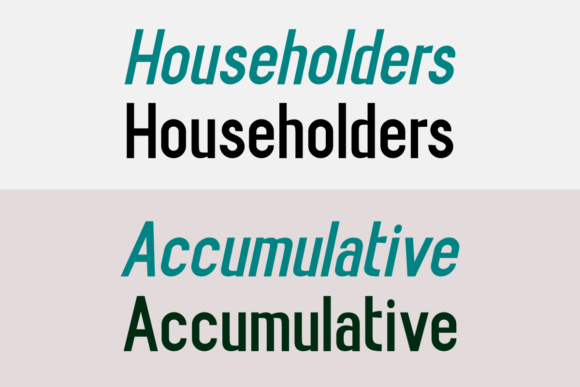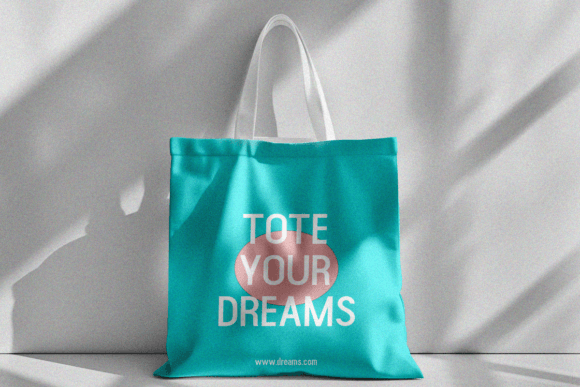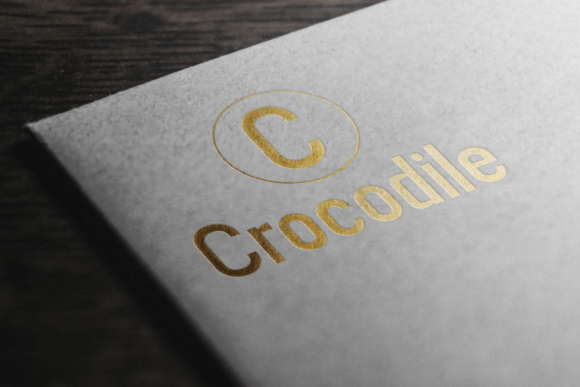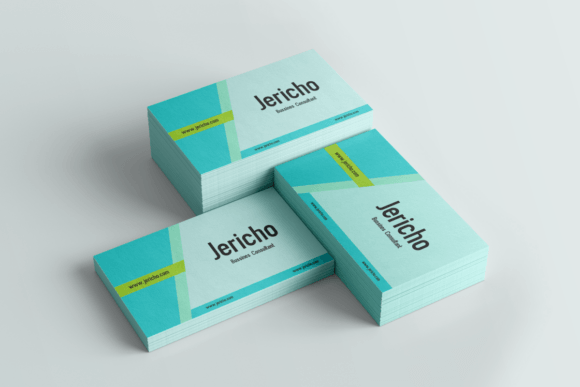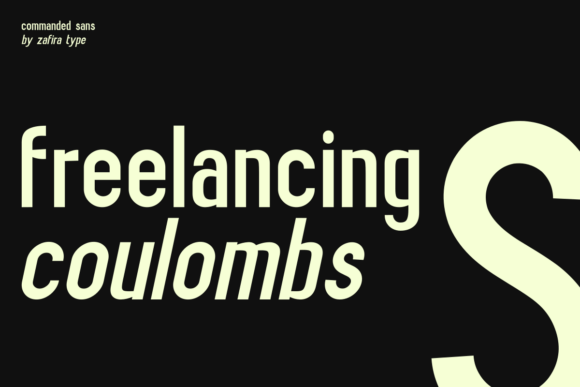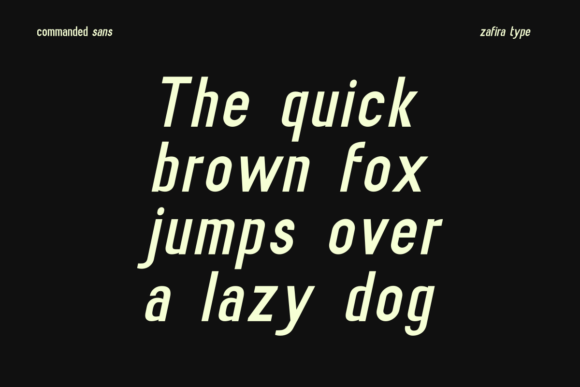
Introducing Commanded Sans: Elevate Your Designs with Modern Sophistication
In the realm of typography, a font can make or break the visual appeal of a design project. For designers and crafters seeking a modern, professional edge, Commanded Sans emerges as a compelling choice. This tasteful sans serif font is crafted to bring a touch of elegance and sophistication to a wide array of design concepts. With its two refined styles, Regular and Oblique, Commanded Sans is poised to become a staple in the toolkit of designers aiming for precision and style.
The Essence of Commanded Sans
Commanded Sans is more than just a font; it’s a design statement. Its core lies in its ability to blend modernism with professionalism, making it an ideal choice for projects that demand a clean, contemporary look. The font’s design is characterized by clean character lines and balanced proportions, ensuring that it brings a sense of harmony and coherence to any design it is part of. Whether you’re working on a branding project, a website, or a print design, Commanded Sans offers the versatility to enhance your creations with its stylish precision.
Refined Styles for Diverse Design Needs
Understanding the diverse needs of designers, Commanded Sans is offered in two distinct styles: Regular and Oblique. The Regular style exudes a straightforward, modern appeal that works seamlessly in a variety of contexts, from headings to body text. The Oblique style adds a dynamic flair, providing a subtle slanted approach that can be used to emphasize certain parts of the text or to create visual hierarchy within the design. Both styles are crafted to ensure that they complement each other, allowing designers to maintain consistency across their projects while also offering the flexibility to experiment with different textual elements.
Why Choose Commanded Sans?
So, what sets Commanded Sans apart from the myriad of fonts available today? Here are a few reasons why it stands out as a preferred choice for designers:
• Modern Aesthetic: Commanded Sans boasts a modern look that aligns with current design trends, making it perfect for projects that require a contemporary feel.
• Elegance and Sophistication: The font’s design elements bring an air of elegance and sophistication, elevating the overall appearance of any design.
• Versatility: With its two styles, Commanded Sans can be used across a range of design projects, from digital interfaces to print materials.
• Legibility: The clean character design and balanced proportions ensure excellent legibility, making it suitable for both headings and body text.
Application of Commanded Sans in Design Projects
The applications of Commanded Sans are vast and varied. Here are some scenarios where this font can make a significant impact:
• Branding: Use Commanded Sans to create a professional and modern brand identity that stands out.
• Web Design: Enhance your website’s typography with Commanded Sans, providing a clean and engaging user experience.
• Print Design: Whether it’s brochures, posters, or business cards, Commanded Sans adds a touch of sophistication to print materials.
• Packaging: For product packaging that requires a modern and elegant look, Commanded Sans is an excellent choice.
Commanded Sans is a testament to the power of typography in design. Its modern, professional edge, coupled with its elegance and versatility, makes it an invaluable asset for designers and crafters. By integrating Commanded Sans into your projects, you’re not just choosing a font; you’re embracing a design philosophy that prioritizes clarity, sophistication, and impact. Dive into the world of Commanded Sans today and discover how it can elevate your designs to new heights of stylish precision.
• Experiment: Play around with both the Regular and Oblique styles in your projects to see how they can best be utilized.
Embark on your typographic journey with Commanded Sans and let its modern sophistication redefine the aesthetic of your designs.